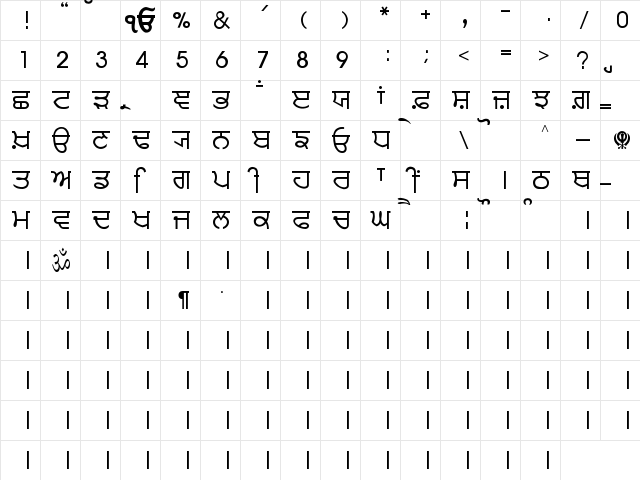
PUN-AdhunikN Regular
PUN-AdhunikN is a composed and adaptable typeface that performs quietly and consistently across a wide range of design contexts.